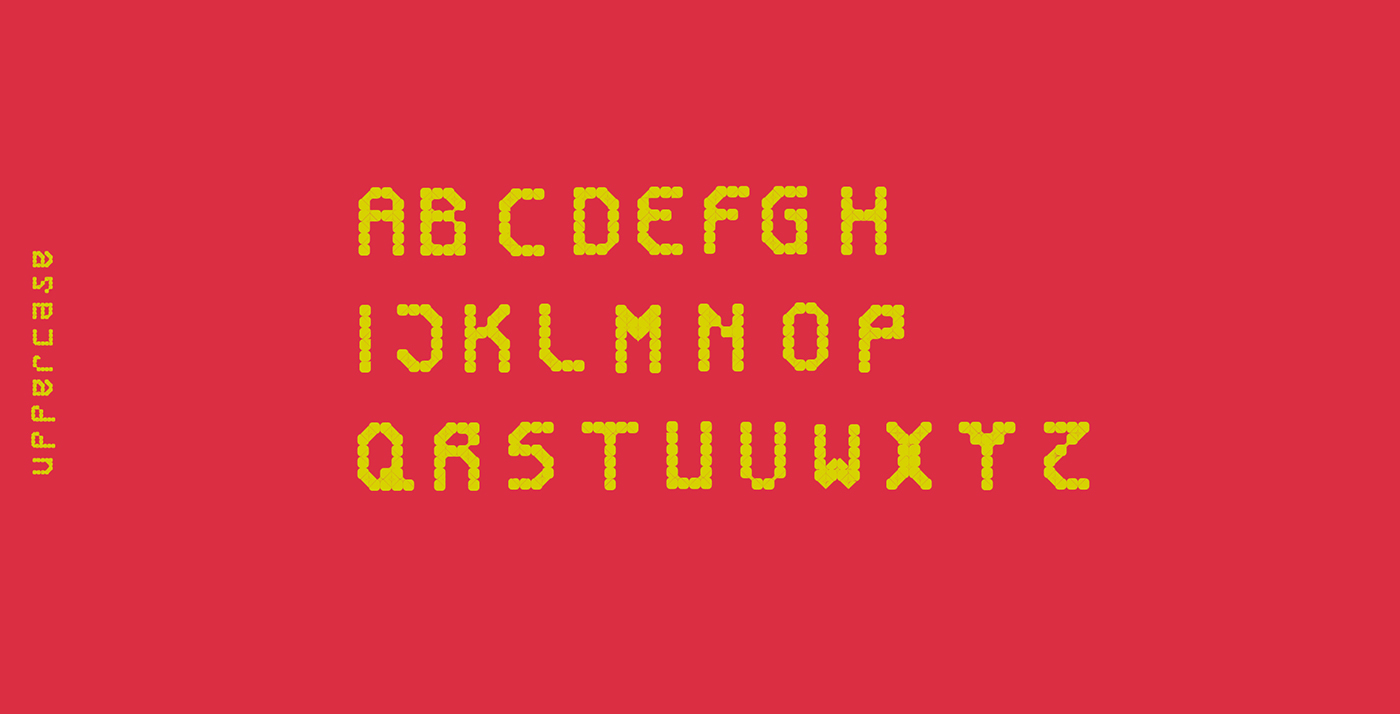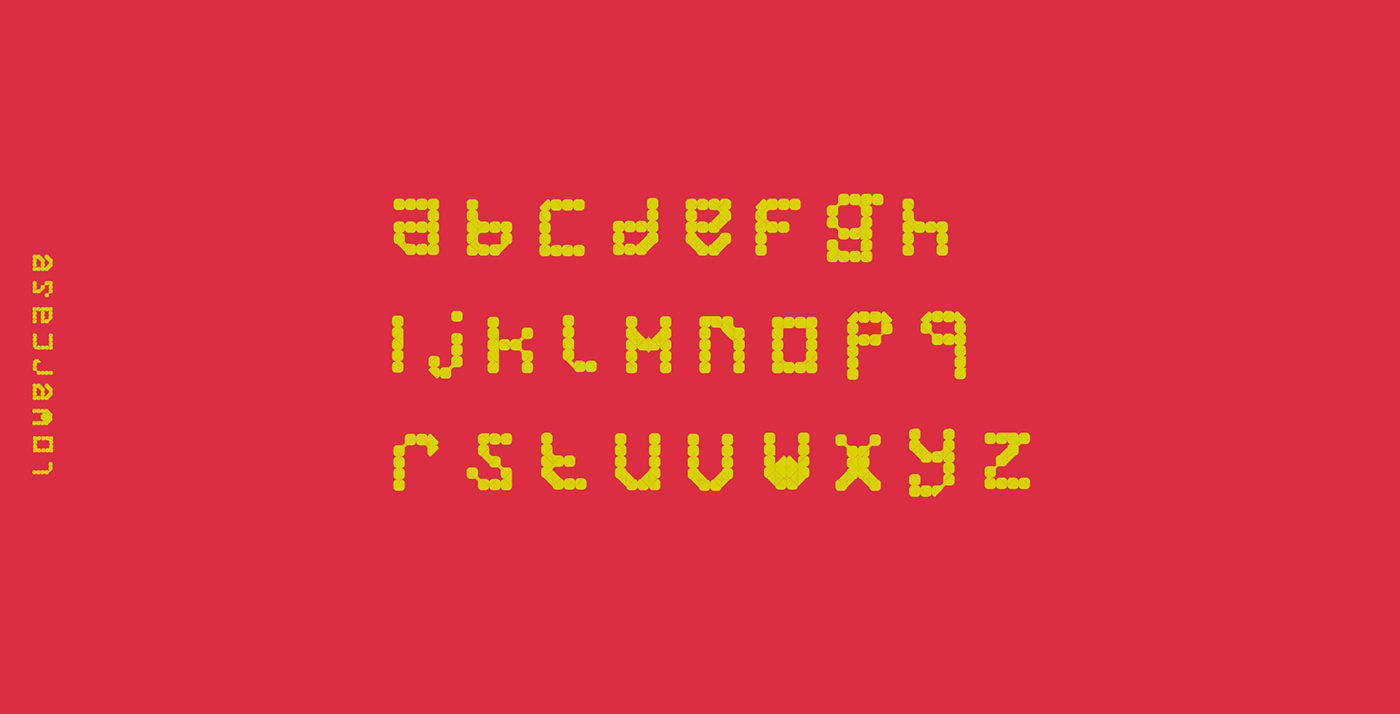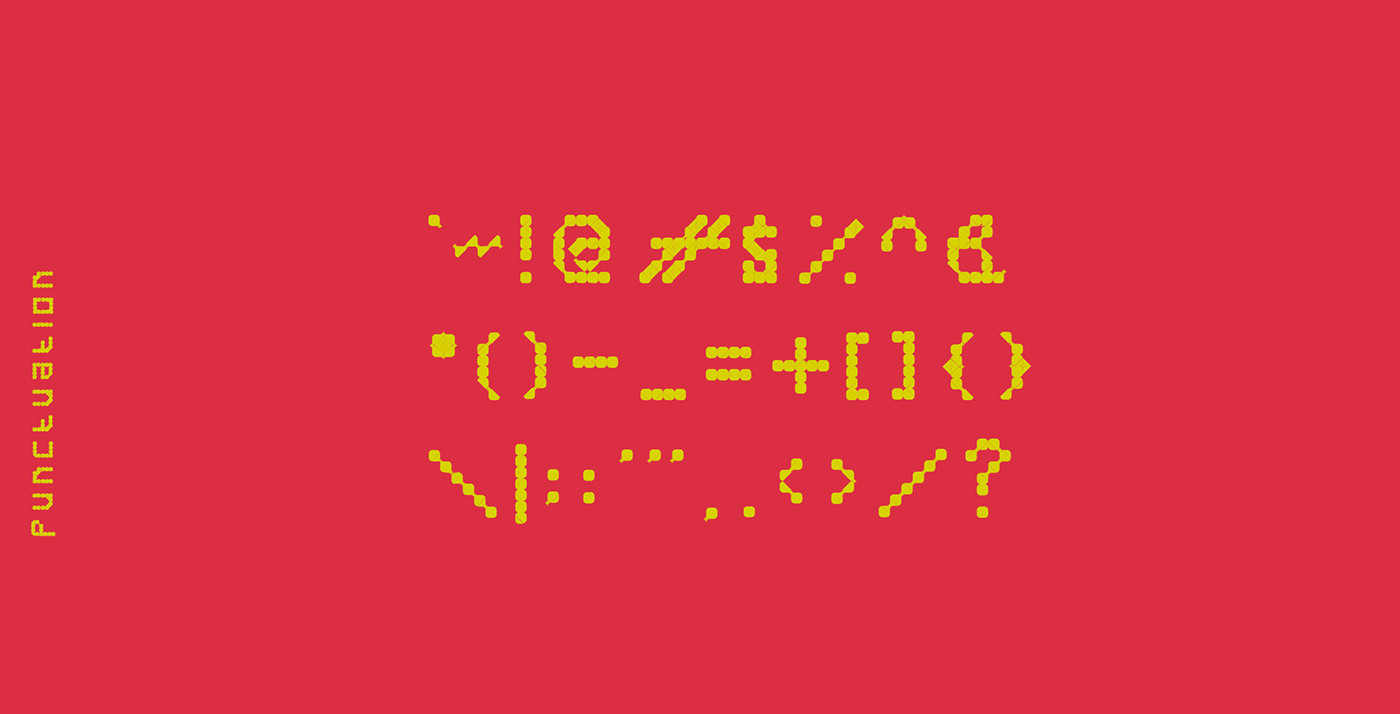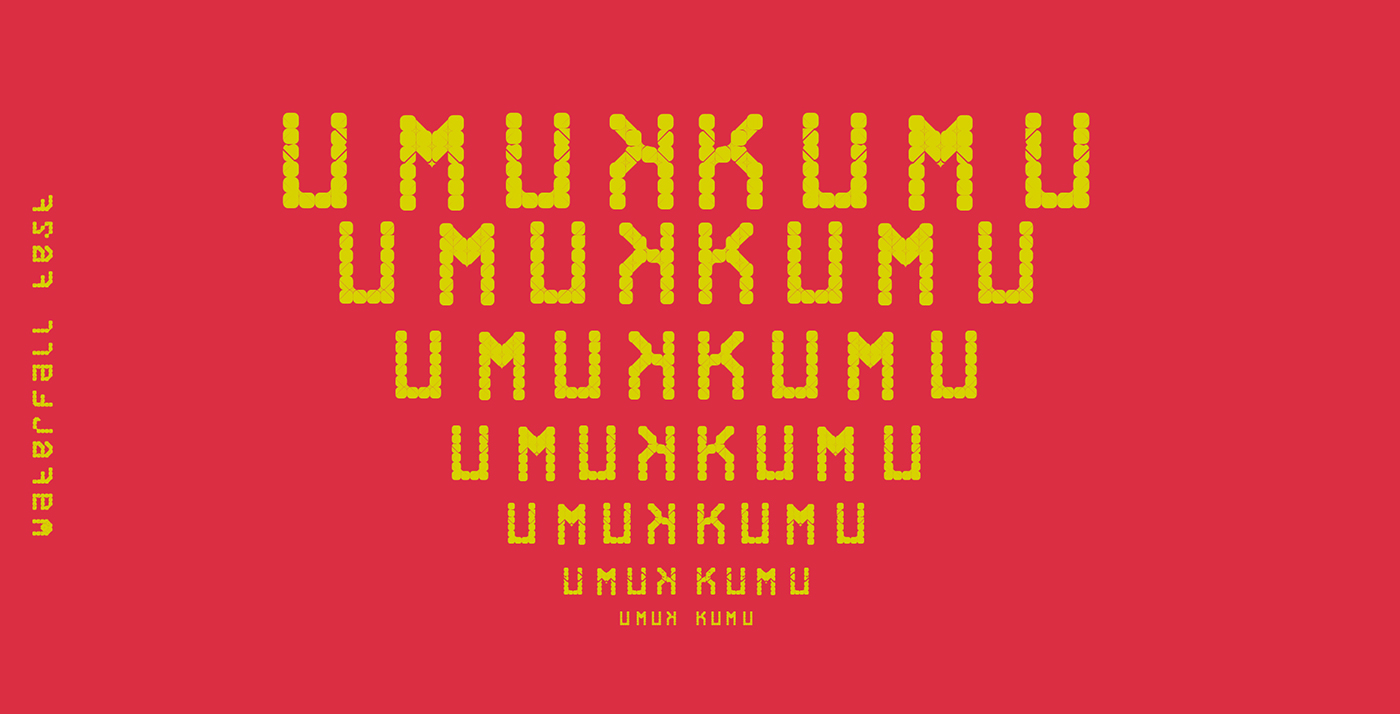
One of the best ways to make a design stand out is by choosing a really good font. In fact, a cool font and balanced typography alone can carry an entire design. Designed by Rizky Fauzi, Kumu is that type of unique font, inspired by a batik pattern. Free for personal use!